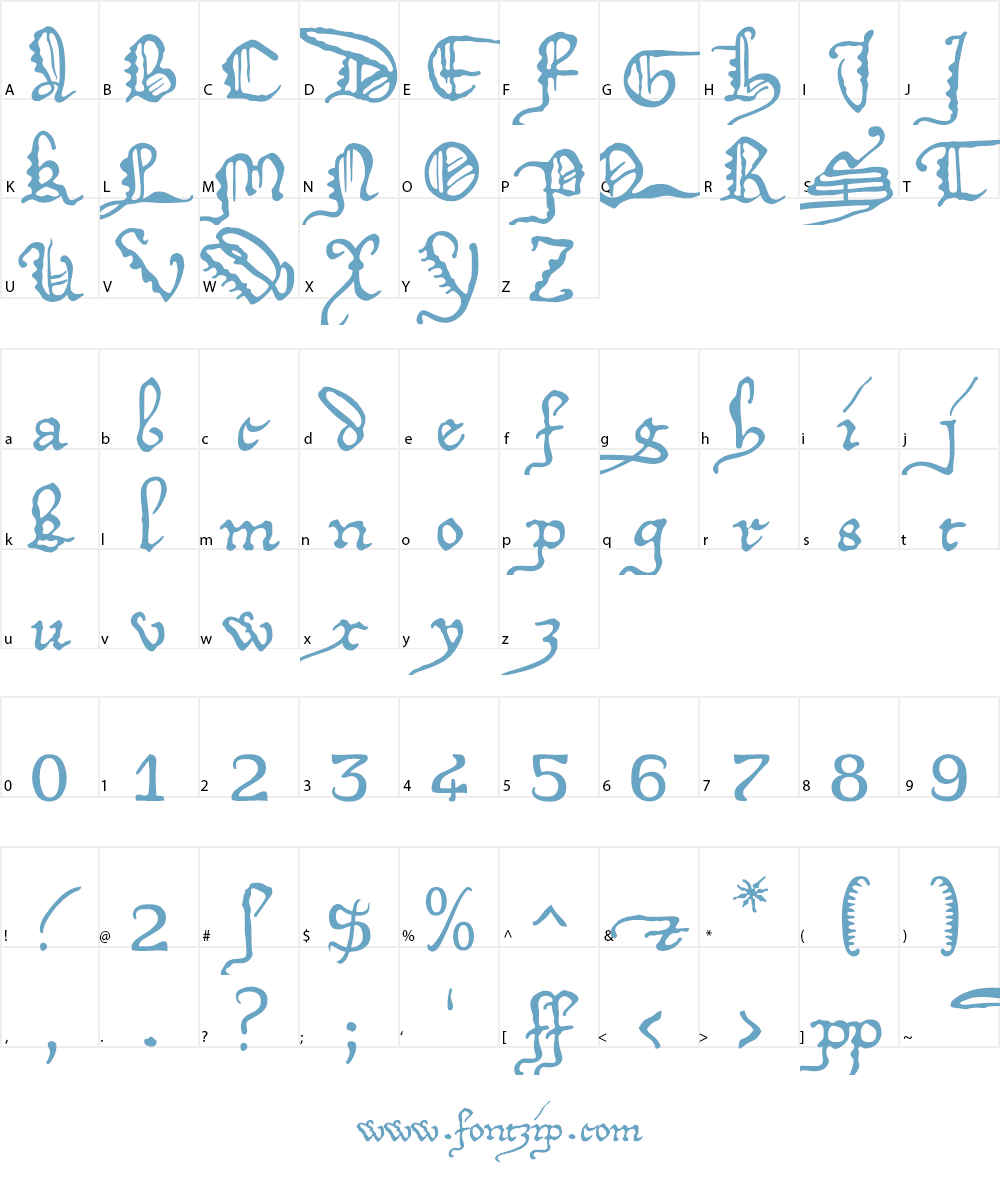
This font is rather closely based on a charter issued in 1275 by Rudolf of Hapsburg (the first of his house to make it on the German throne). Said charter is remarkable for two fine qualities: firstly, for containing, thanks to a long list of witnesses, a nearly complete set of upper case characters in the same style as the text -- which is a far from common occurrence in charters of that epoch --; and, secondly, for the scribe's ability to create a charming impression of harmony by producing a thorough mess. No letter ever hits the line, and the distance by which it fails is never the same as that of its neighbours; the middle zone characters are considerably varying in height, even in the same word, ms are hobbling around on one long and two short legs (or vice versa), upper as well as lower case letters are narrowing or broadening at random, blotched and shivering strokes seem to be the chief styling feature ... and yet the whole is a pleasure to look at. As a consequence, inheriting a lot of the charter's qualities, this font will look best in longer texts. I'm sorry to confess that I'm unable to imagine what such texts might be.
As for the type of writing, I'm quite at a loss. Created at a time when book writing was in the early stages of Black Letter, this charter's hand contains elements of formal as well as cursive writing, ending up with being neither the one nor the other. To simply call it a documentary hand doesn't help either, for even as such it sticks out like a sore thumb among the -- clearly more cursive -- charters of its epoch. Altogether, the document looks a bit too sumptuous for a charter issued by Rudolf of Hapsburg, who was renowned for being extremely parsimonious. Whole legends were told about his mending his gowns and helmets himself (it has even been said that when he felt he was going to die, he rode in a haste to Speyer, where he wanted to be buried, to save posterity the expense of bringing his body thither), and all the other charters of his chancery that I know of bear that character out, being chiefly notable for their minuscule writing. There certainly never was neither ink nor parchment squandered; whereas, in this document, the text, though lavishly adorned with ink-swallowing Lombardic capitals, hardly covers half of the available space. -- Let's not get too suspicious. For sure, this charter was granting privileges to a monastery, and abbeys have been known to push their claims by means of forging charters; yet it is perfectly thinkable that the beneficiaries wrote it at home and brought it along to be signed, sealed and ratified, which would very well fit the pattern. And let's further consider the possibility of some young clerk trying his hand for the first time, and being fired immediately afterwards, for waste of his employer's resources... Anyhow, even as a forgery, this would still be a very old as well as a very beautiful document. Therefore, I shall hereby invent the term of proto-Bastarda, and leave the rest to palæography.
There is no number sign in this font. In its place, you'll find a long s. Equally, you'll find extras in other places:
a double f on the left bracket
a double p on the right bracket
a double l on the left curly bracket
a double g on the right curly bracket
a double long s on the long s sign
the charter's most eye-catching abbreviation sign on the ASCII tilde (it should be used like an accent)
a separator of sentences on the bar sign
as well as a long s t ligature, and the original N on the fi and fl. In case those aren't reachable on your computer, please try the masculine and feminine ordinal indicators, or the 'less-than or equal to' and the 'greater than or equal to' signs.
As to the abbreviation sign's meaning, I'm not sure. It seems to say that one or more characters are missing form the word below it -- sometimes this is an i, sometimes an n, and sometimes the whole ending of a noun.
The sentence separator, used twice in the document, consists of a feathered horizontal line at uppercase height. In this font, it contains the preceding sentence's period, too. It has even been included in the font's kerning.
And the original N ... yes, yes, I replaced it by one of my own making. Go look at it on the fl sign to understand why.
Update 2010 has redesigned all of the composite glyphs (correcting the dcaron, Lcaron/lcaron, and tcaron), and enlarged the dashes.